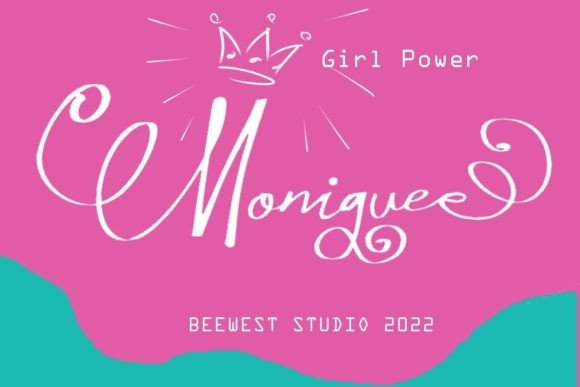
Monique Font
Behold Monique Font, the epitome of script typography, designed by the maestro wisudyantoro. Monique personifies sweetness, captivating with its dainty and romantic allure. It's as if each letter has been amorously handwritten, just for you. By simply gazing upon Monique, your creative potential yearns to be unleashed, to transform your designs into exquisite works of art.
Imagine crafting wedding invitations that exude a timeless elegance, the kind that sweeps hearts off their feet. Valentine's Day cards adorned with Monique's charm become treasured keepsakes, tokens of affection that whisper sweet nothings with every stroke. Greeting cards and birthday wishes take on an enchanting aura, as if sprinkled with fairy dust. Monique's versatility extends to titles, logos, and marketing materials, lending them an unforgettable touch that commands attention.
Monique is the ultimate companion for artists, designers, and dreamers alike. Its PUA encoding opens up a world of creative possibilities, granting you effortless access to a treasure trove of captivating glyphs and ligatures. Unleash your imagination and witness Monique's magic transform ordinary text into awe-inspiring masterpieces.
With Monique Font, you'll embark on an artistic odyssey, discovering hidden depths of creativity within yourself. It's more than just a font; it's an invitation to embrace your individuality, to express your emotions with flair, and to leave an indelible mark on the world. So, seize this opportunity to let Monique ignite your passion, set your imagination ablaze, and paint your world with beauty.